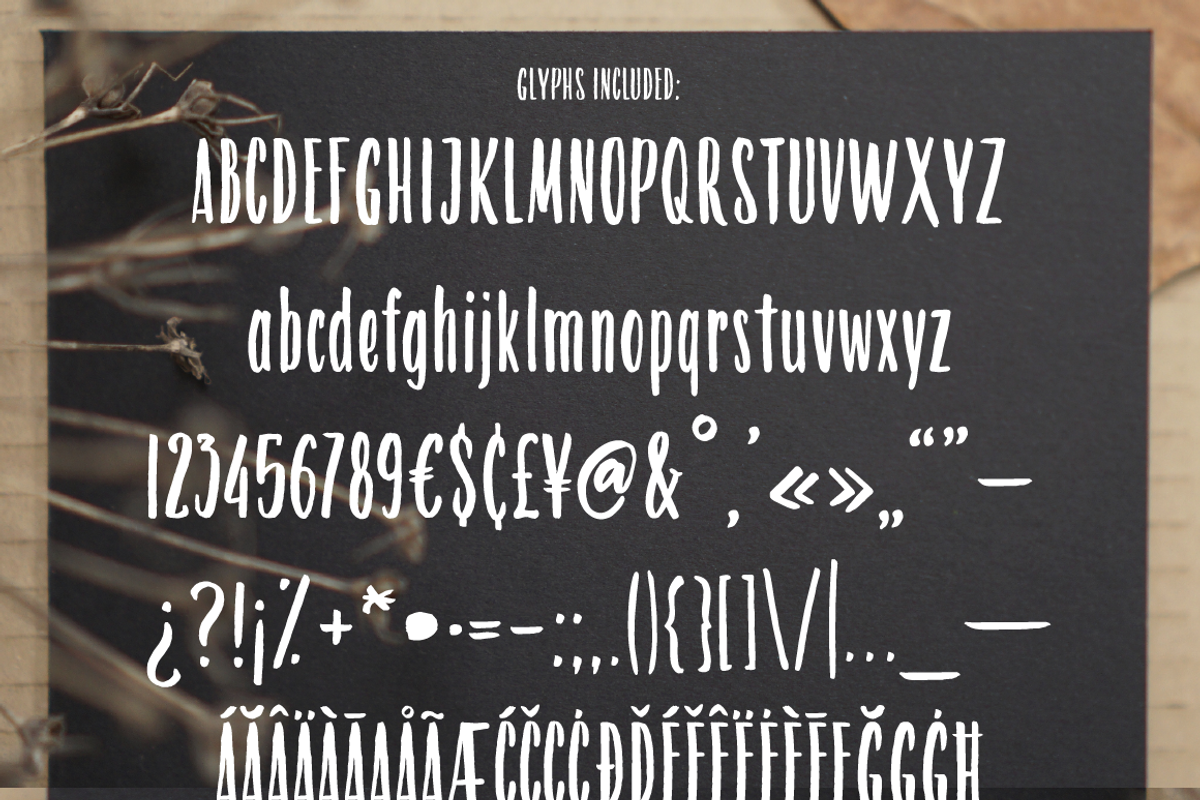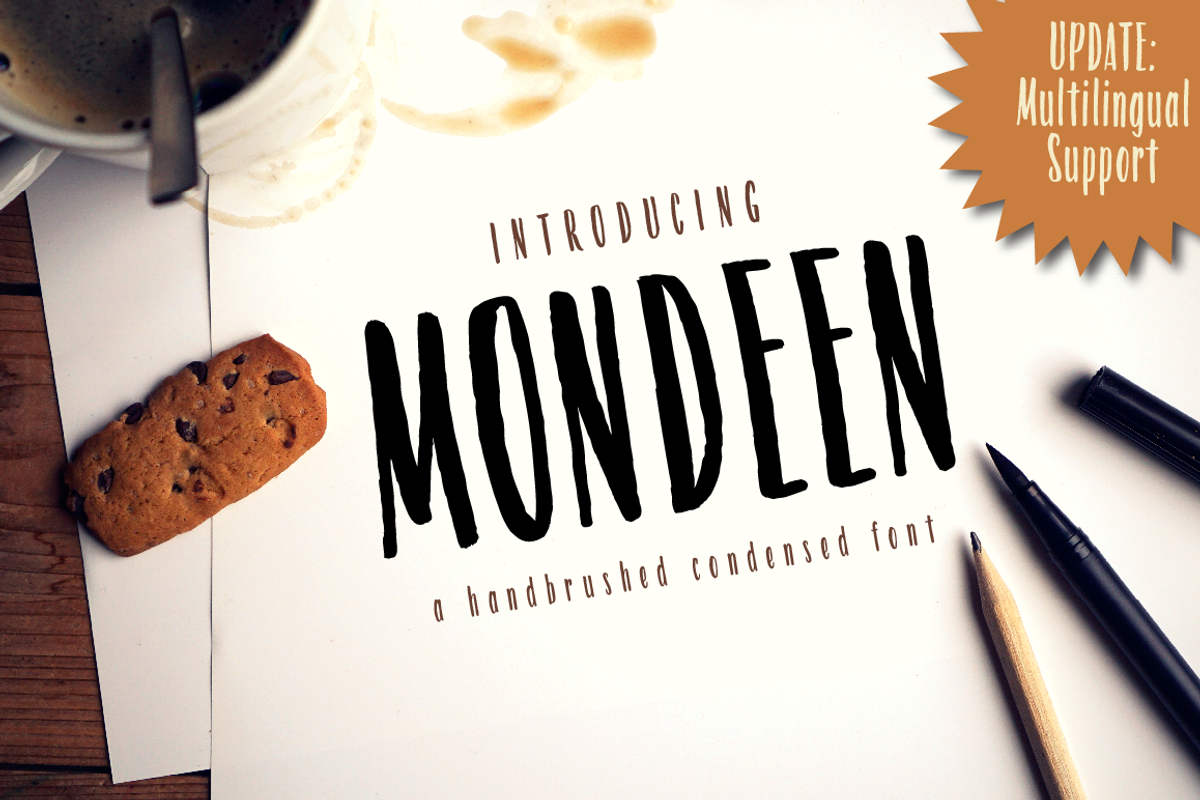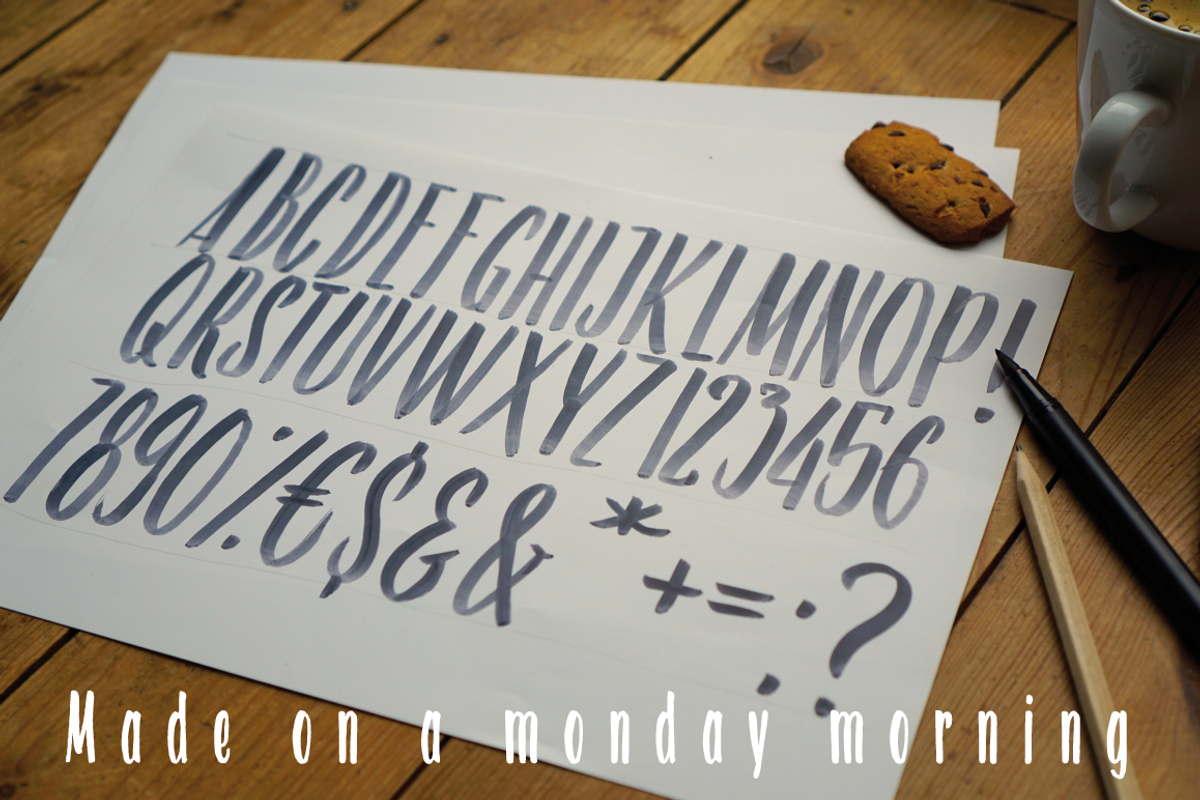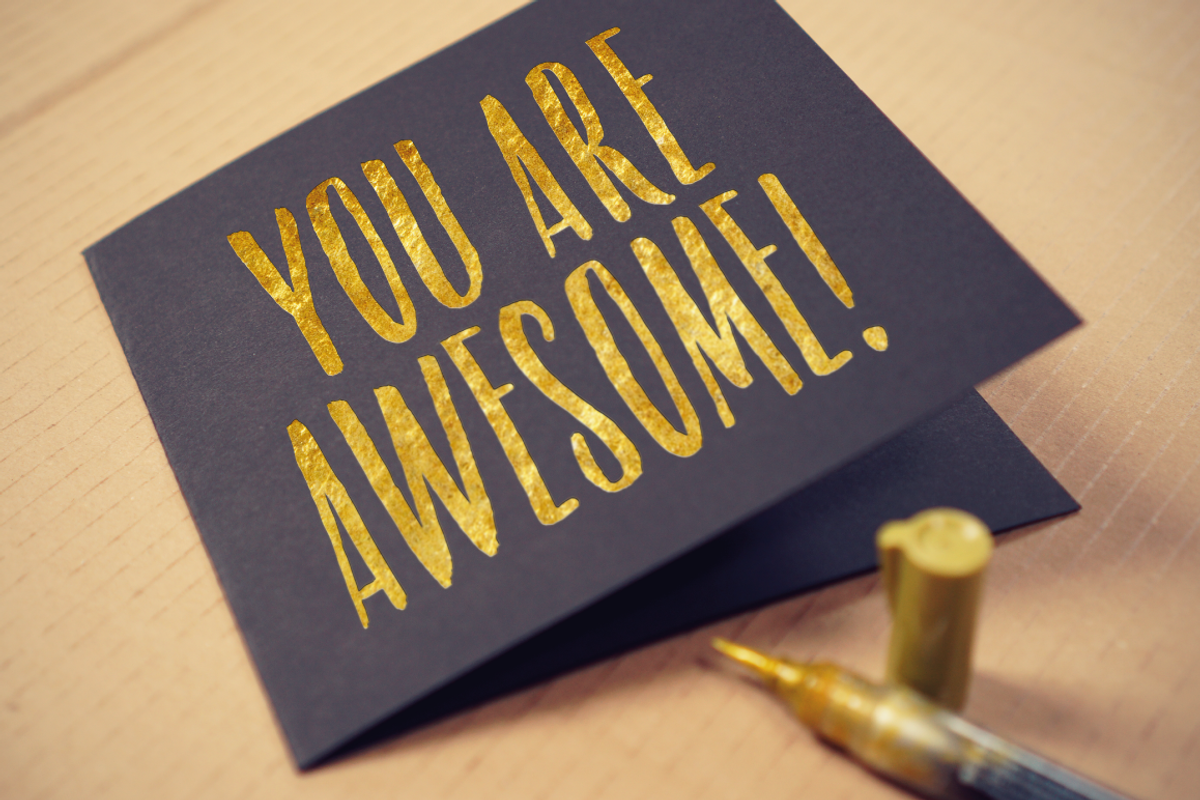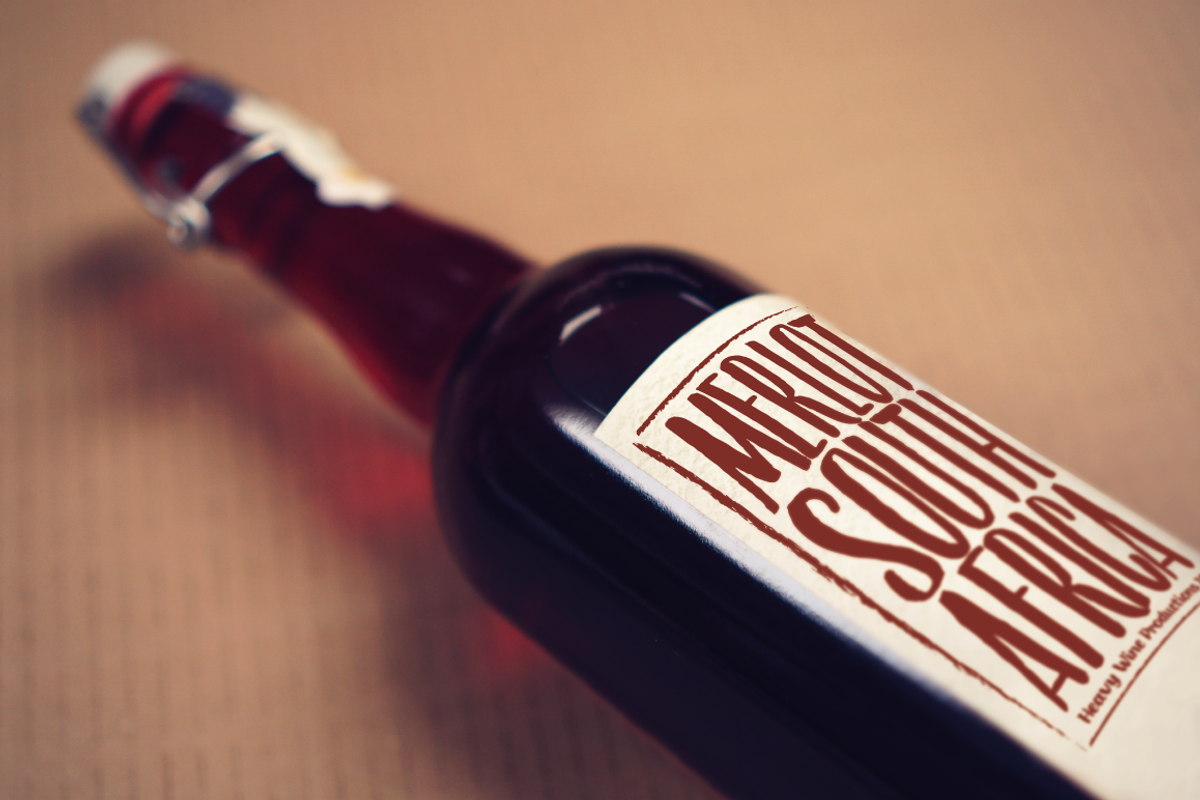
Mondeen condensed
Mondeen condensed by Fonts by ateliervonau is a font selected for branding, posters, packaging, typography.
Why Mondeen condensed is worth a look
Mondeen condensed by Fonts by ateliervonau fits naturally into Branding, posters, packaging, typography.